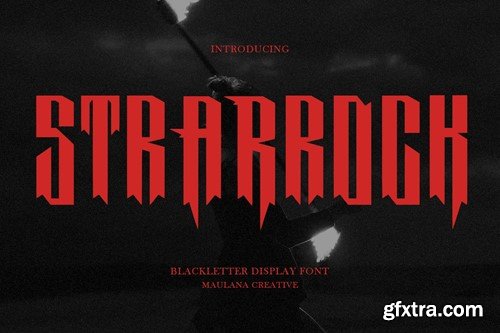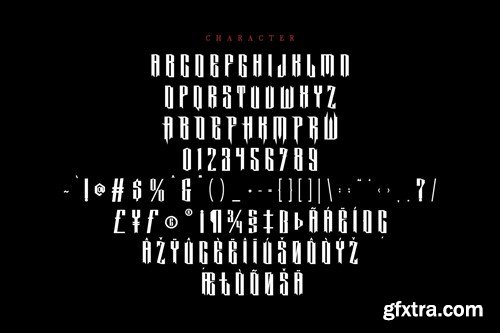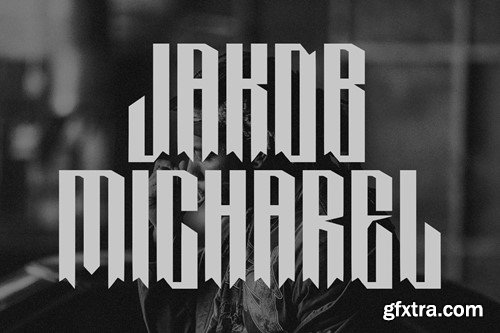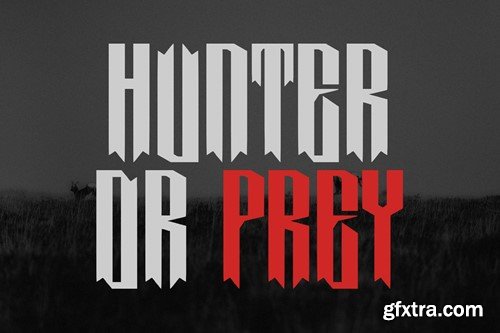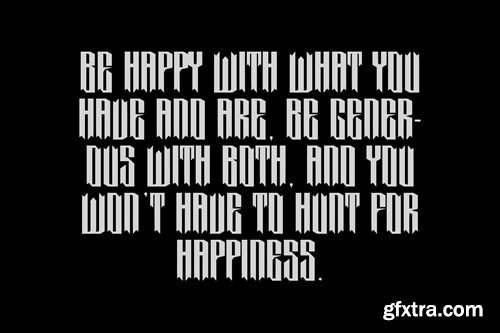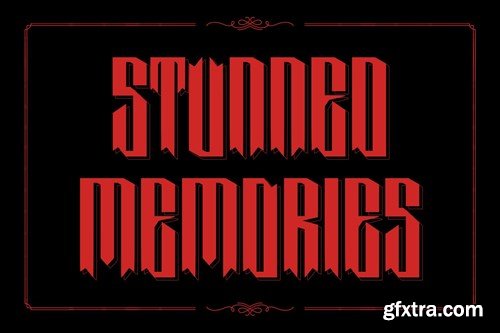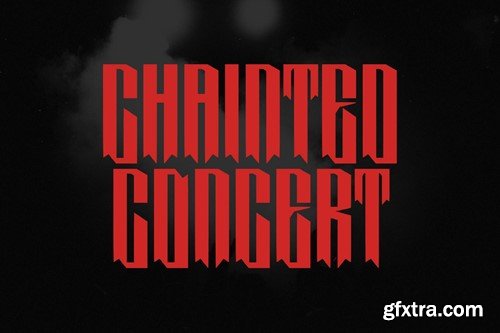
Strarrock Blackletter Display Font
Strarrock blackletter display font. Heavy stroke, vintage character with alternates. To give you an extra creative work. Strarrock display font support multilingual language. This font is good for logo design, Social media, Movie Titles, Books Titles, a short text even a long text letter and good for your secondary text font with script or serif. Make a stunning work with Strarrock font. What you get: Cheers, Maulana Creative